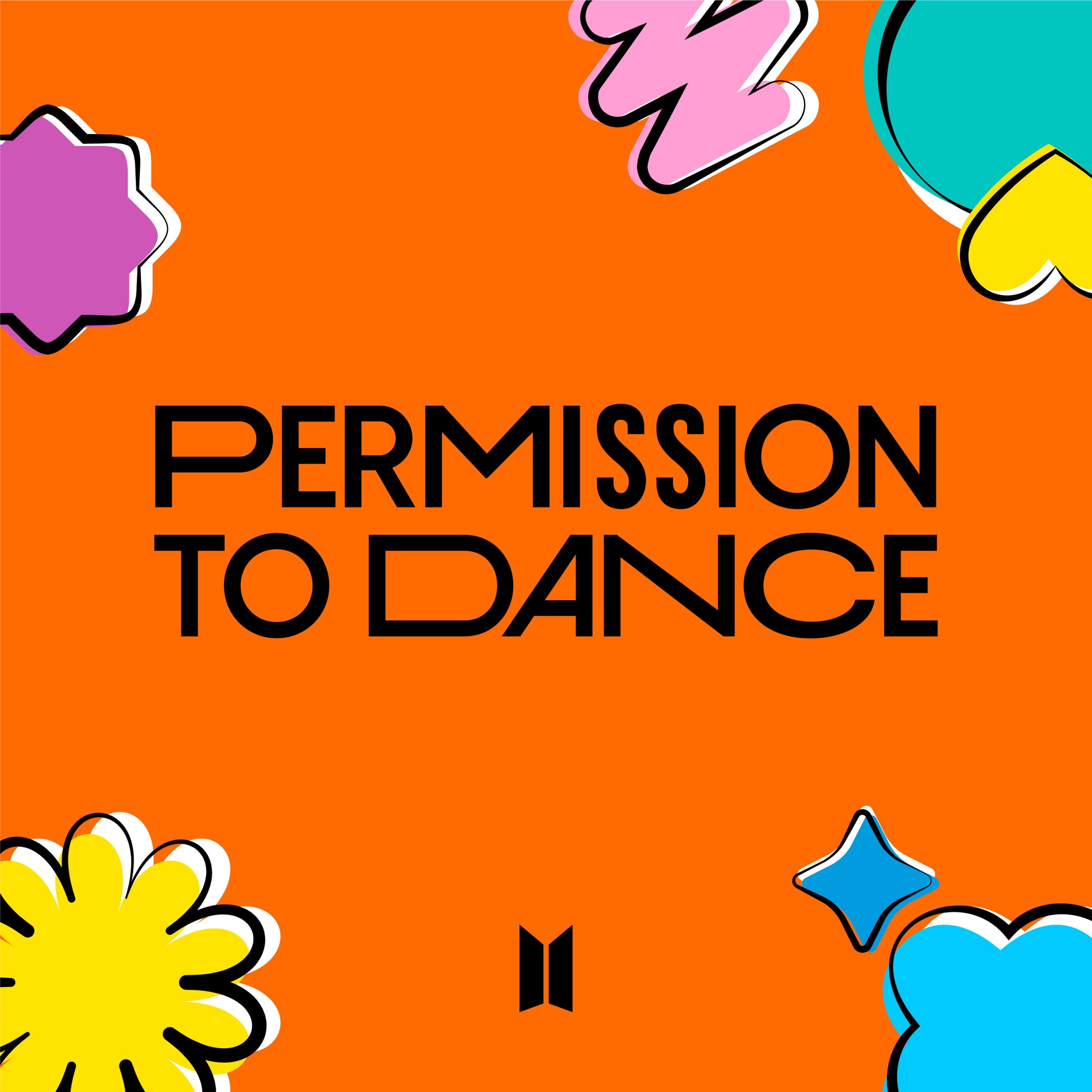
Permission to Dance Font
Fonts in UsePermission to Dance is a single by the South Korean boy band BTS, released in 2021 as part of the "Butter" CD single. The song was co-written by British singer-songwriter Ed Sheeran.
The cover artwork of the single features a combination of sans serif fonts, including ITC Avant Garde Gothic for the O, T, and A, Specify Extra Expanded Bold for the wider letters like P, M, D, and NC, and Orbitron or ITC Blair for the letter M with a central pointed vertex. The narrower SS could be Bebas Neue, while the rest of the text appears to use a font similar to Cabin SemiBold.